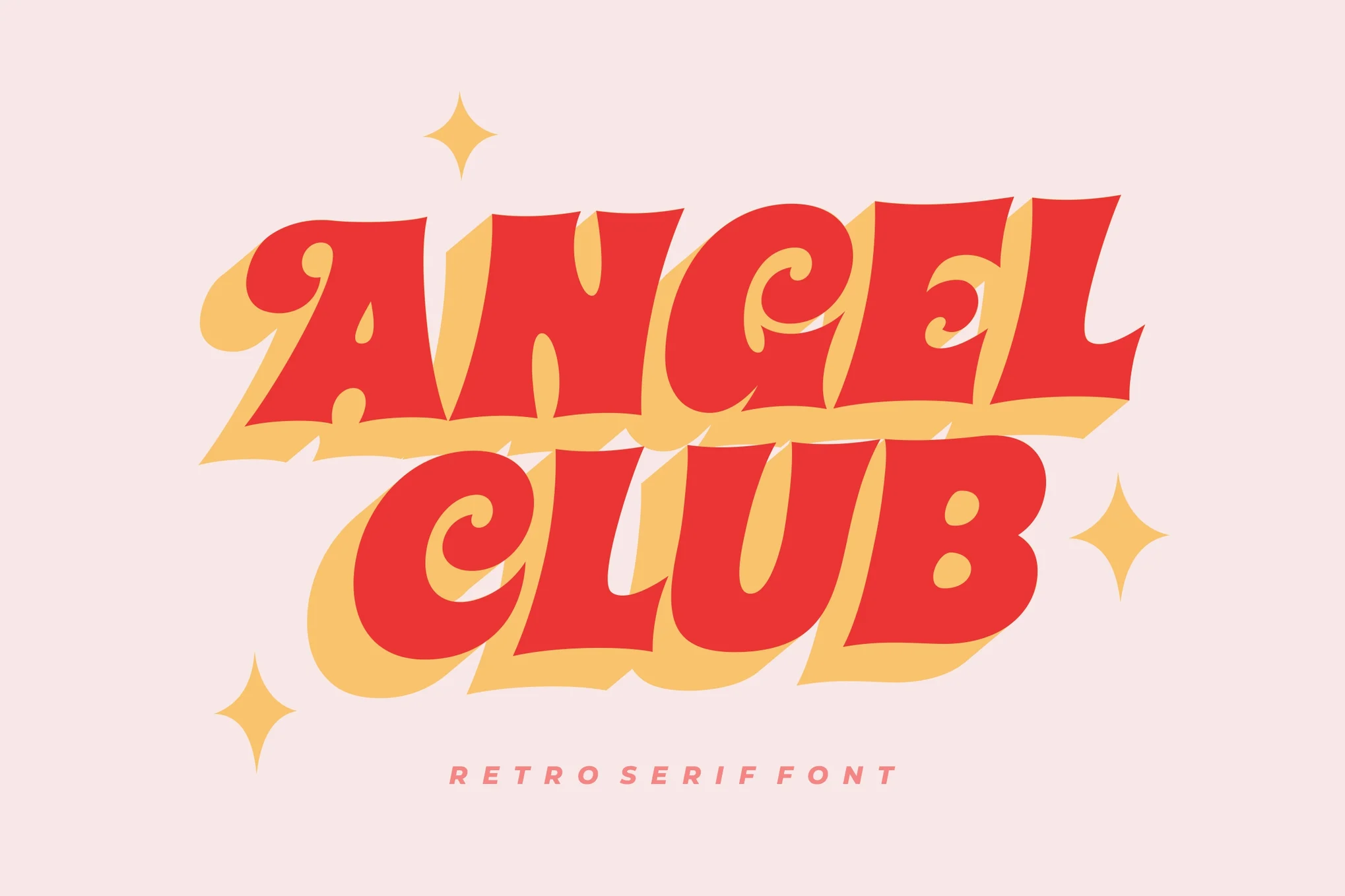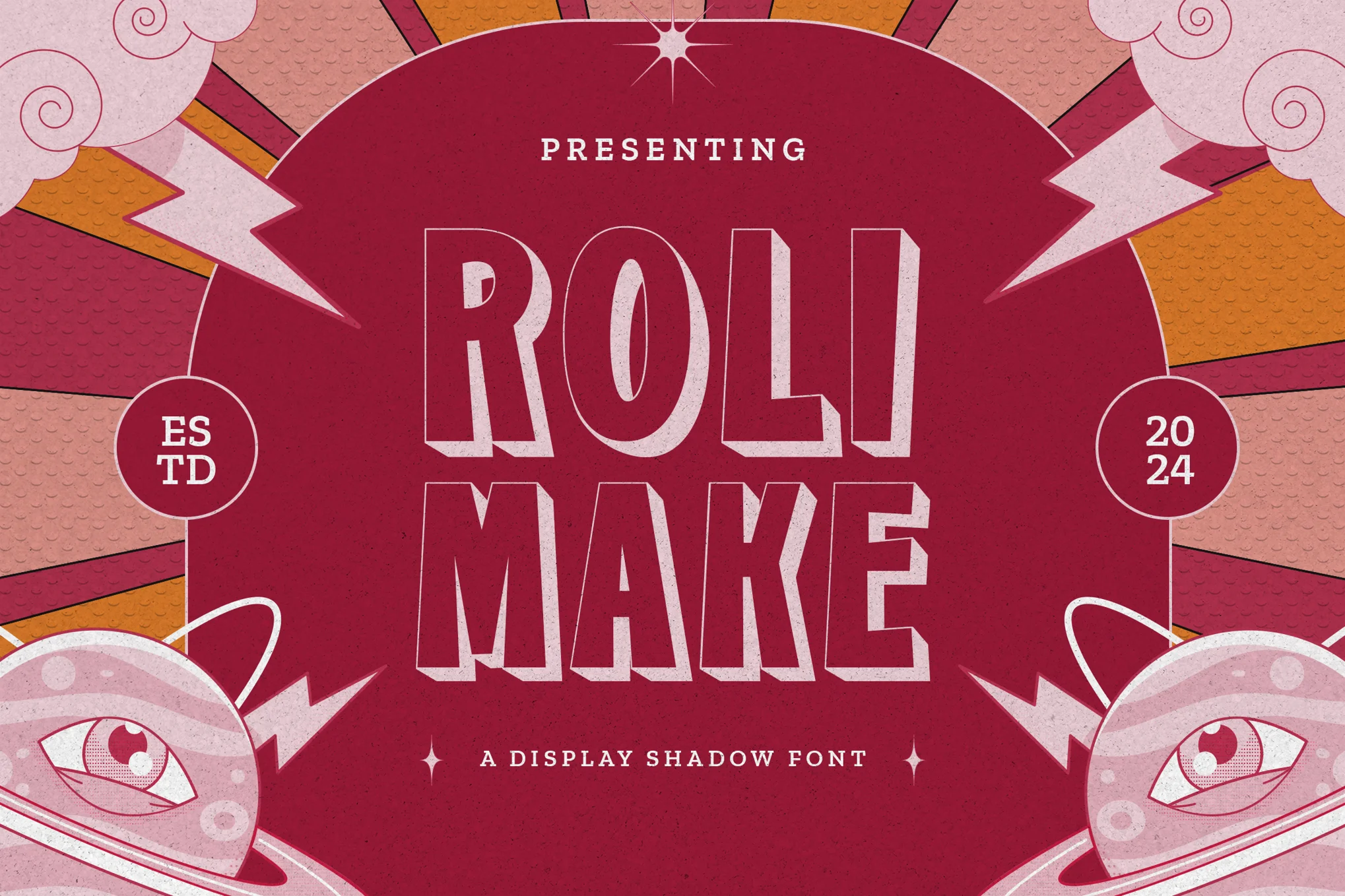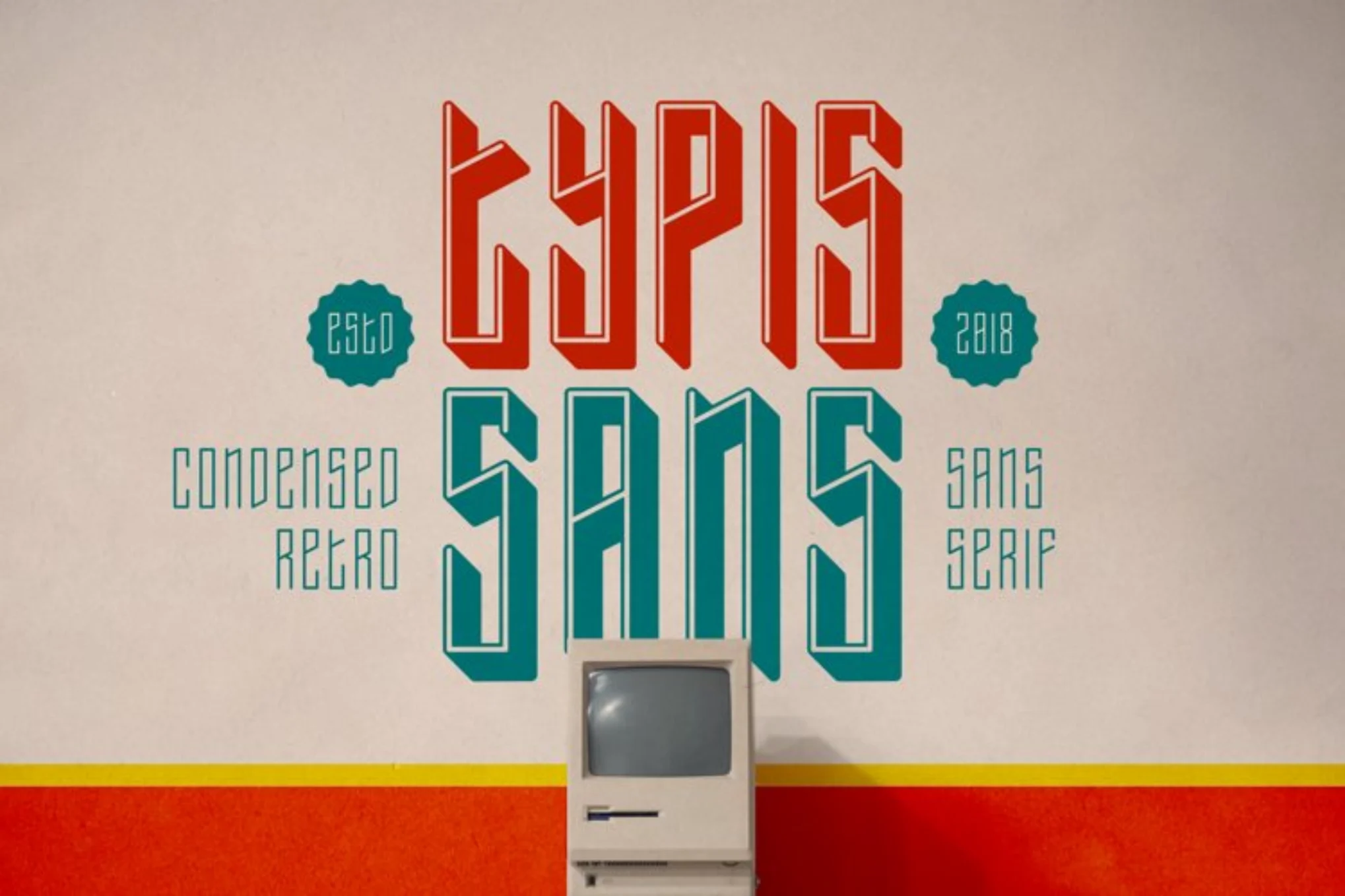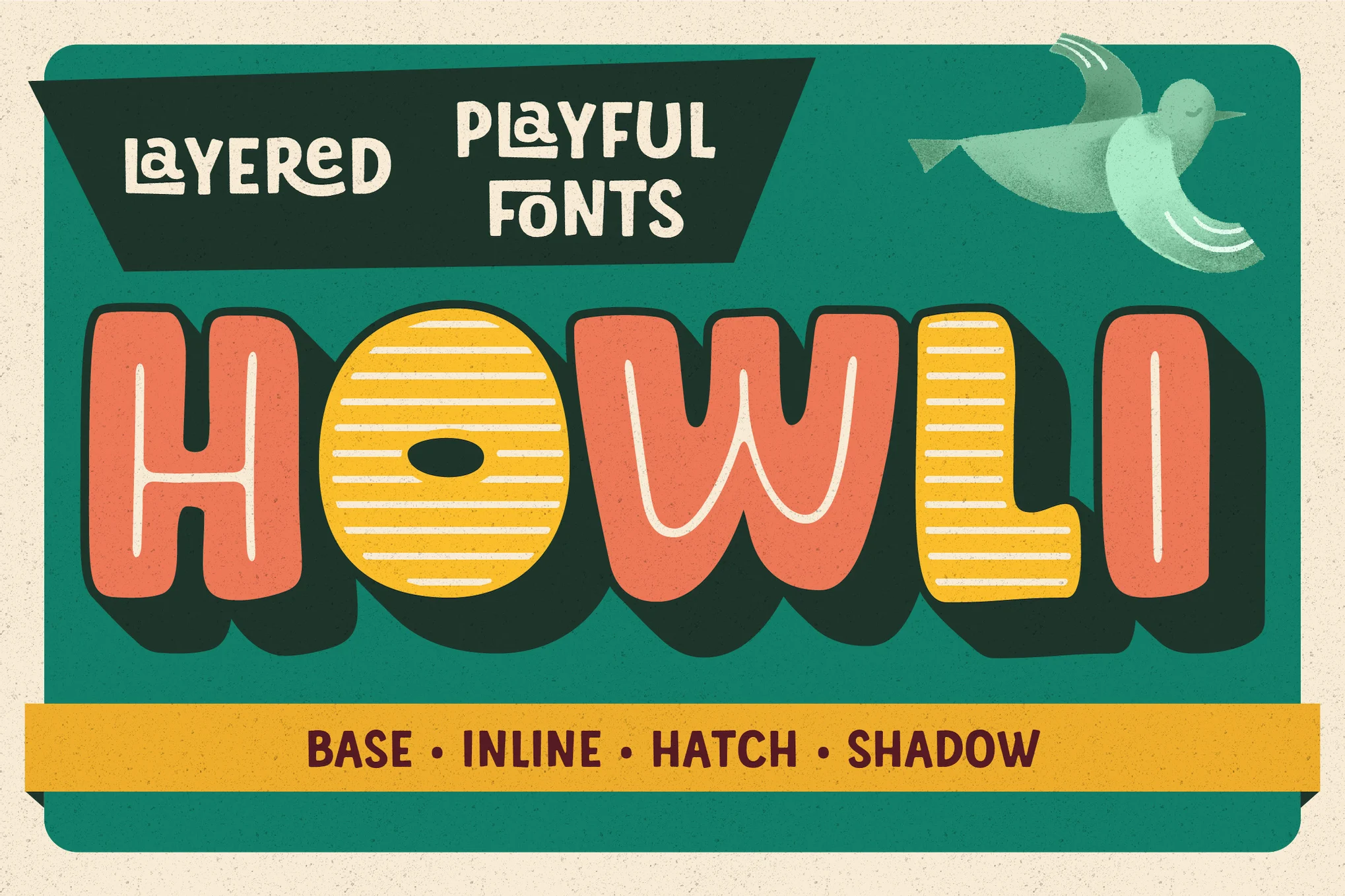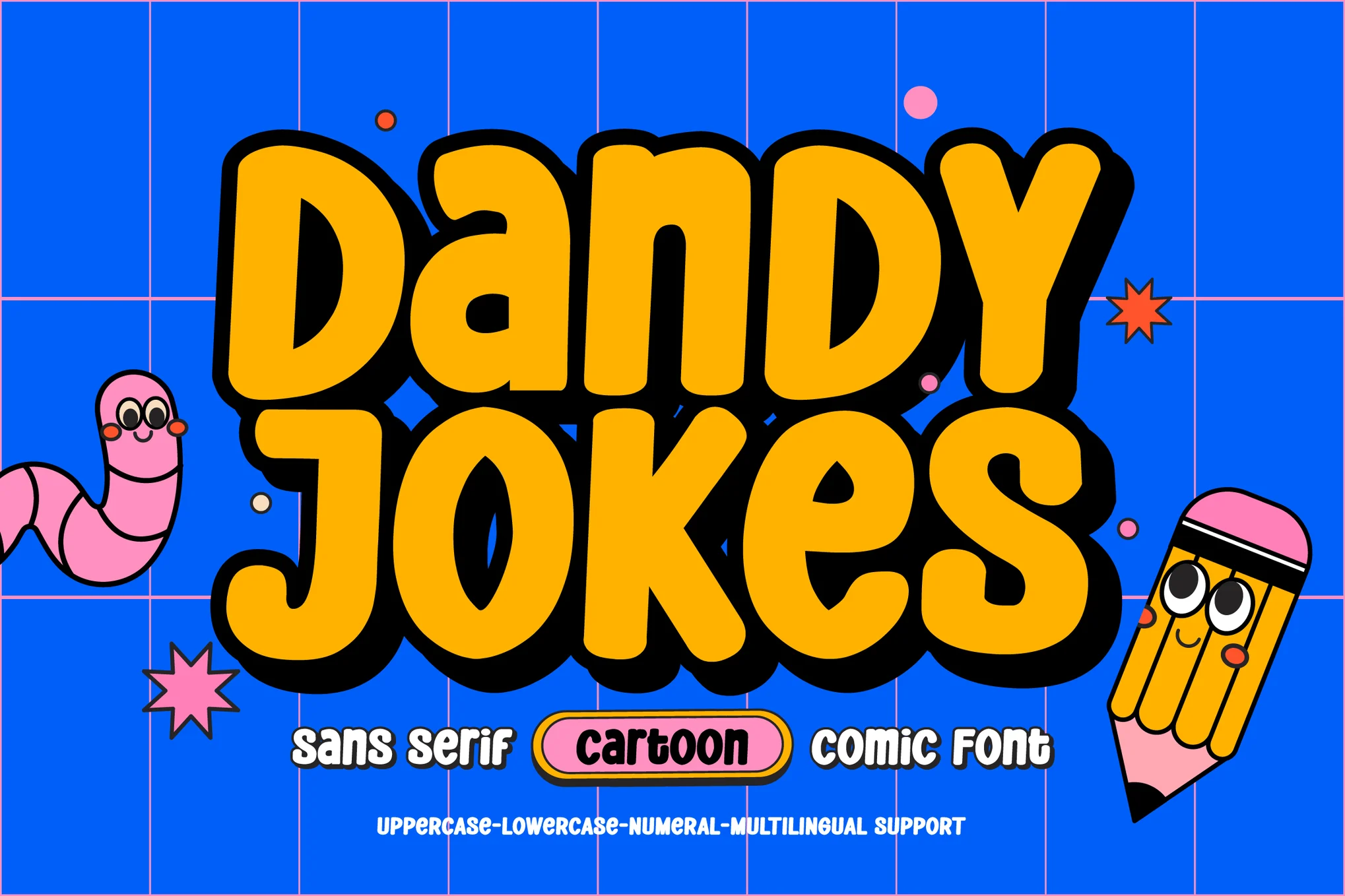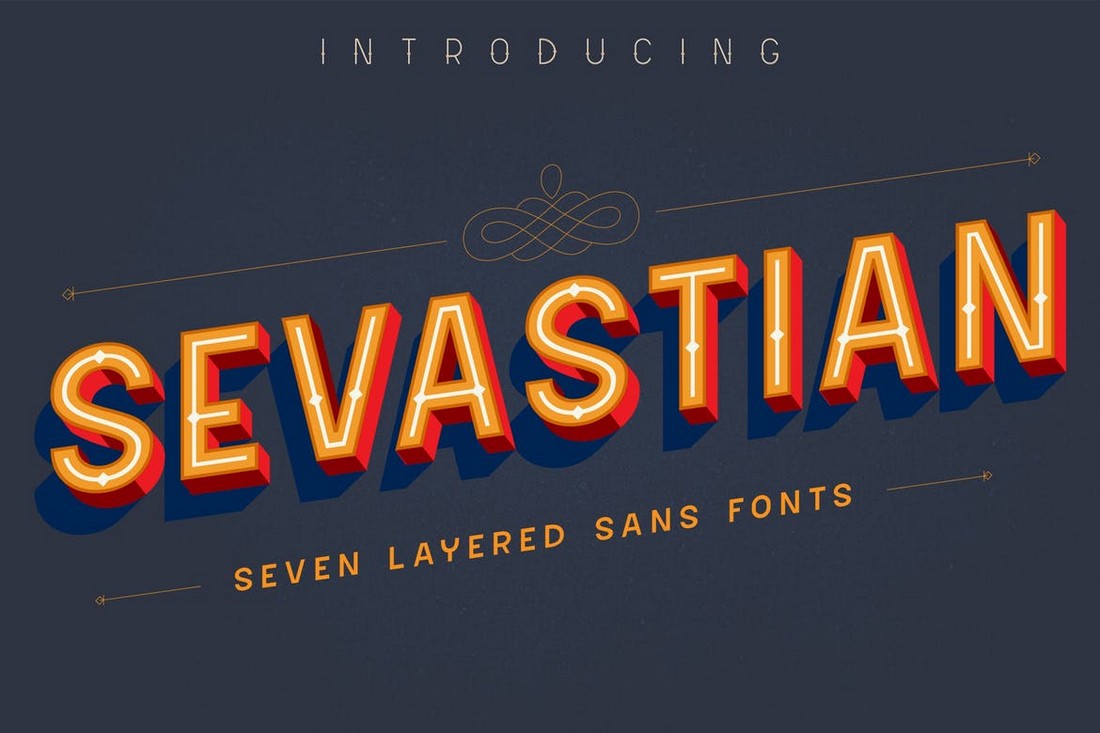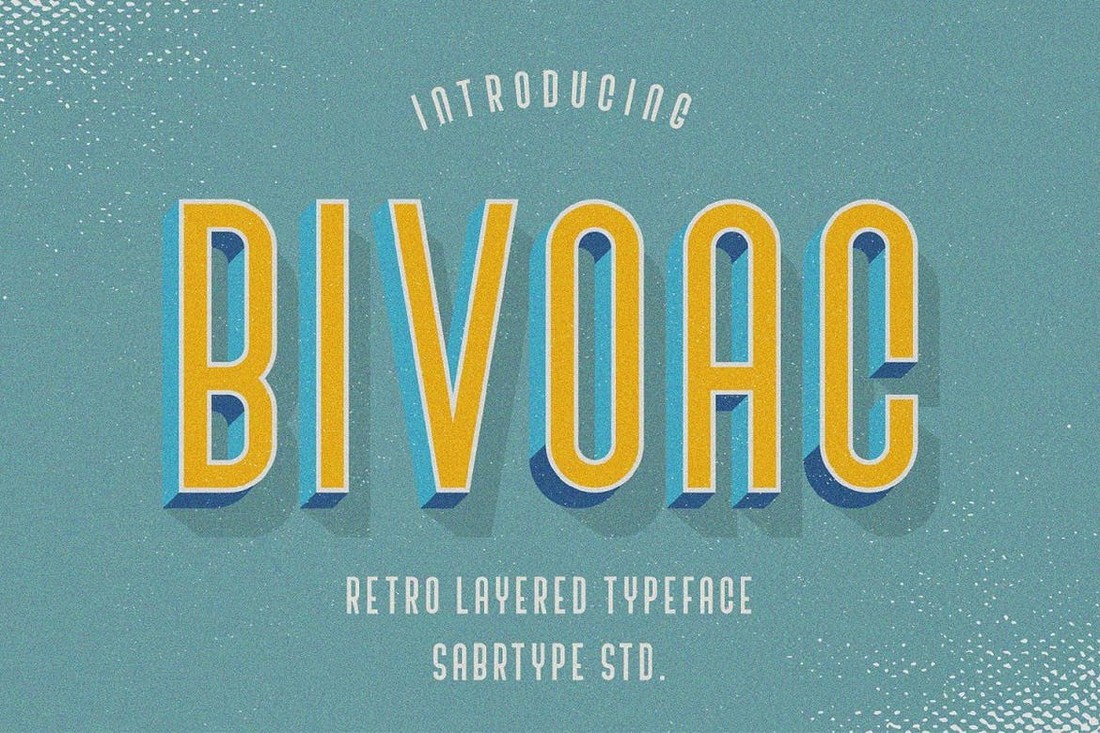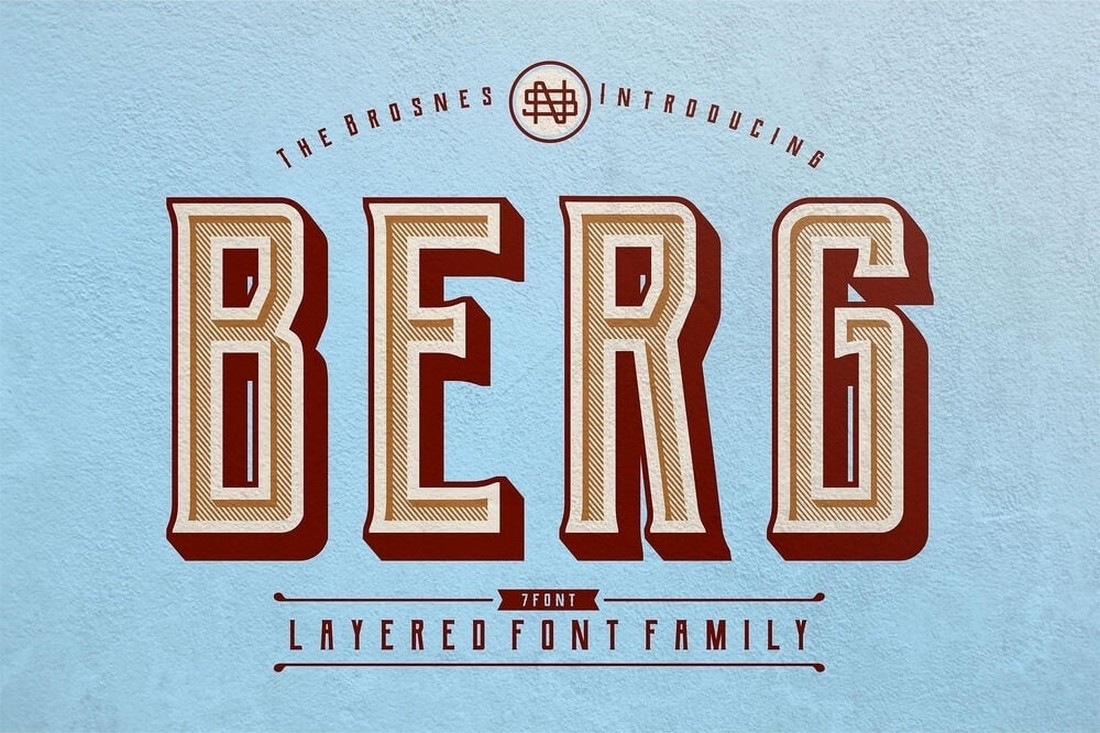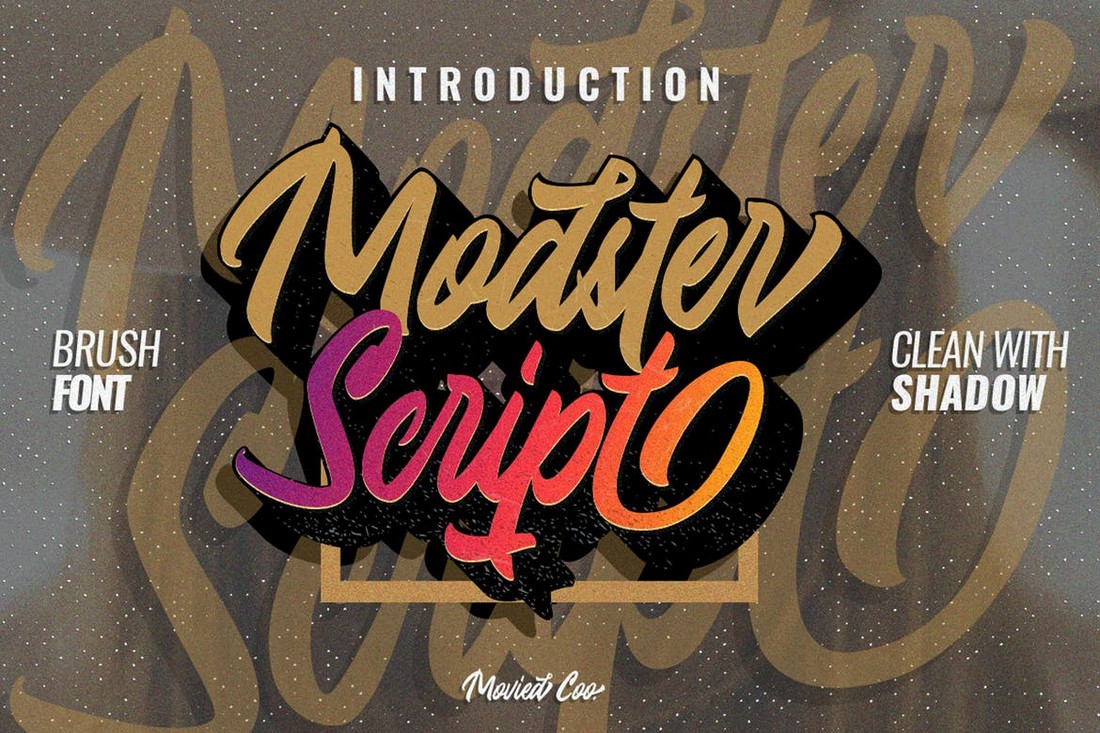
Adding a drop-shadow to your text in Photoshop is a great way to highlight titles and make a cool text effect.
What if there’s a font that already has a shadow effect and you can use in any software? Well, that’s exactly what a shadow font is all about.
Shadow fonts are a special type of font that comes with a built-in shadow effect. Sometimes, this effect even gives a cool 3D-like look to the font as well.
In this collection, we are showing you some of the best fonts with shadow lettering that have various styles of designs and purposes. Have a look.
Geist - Creative Shadow Font
Geist is a captivating sans-serif shadow font that comes in eight unique styles. Perfect for a bold design statement, use it in larger sizes to emphasize the shadow, vintage, and inline features. Ideal for those who want to bring an edgy element to their project, Geist even includes uppercase letters and numbers for maximum versatility.
Mupen - Bold & Fun Display Font
Mupen is a bold and playful display font, draws inspiration from neobrutalism styles. This striking typeface is perfect for enhancing your typographic designs on a wide array of mediums like posters, book covers, signage, apps, games, and much more. Available in regular, outline, and shadow formats, it includes uppercase, lowercase, numerals, and more.
Angel Club - Stylish Shadow Font
Angel Club is a striking shadow font with a retro twist. Bundling three styles – Regular, Slanted and Shadow, it’s infused with a nineties vibe that will seamlessly add a retro touch to any project. Offering uppercase and lowercase letters, numbers, punctuation, and multilingual support, this font is available in OTF and TTF formats.
Rolimake - Shadow Display Font
Rolimake is a dynamic typeface that features a notable shadow effect, adding depth to headlines and branding. Its bold yet artistic style offers a unique touch to designs, capturing attention across both print and digital formats. It includes uppercase, lowercase, symbols, punctuation, and numerals.
Typis - Layered Shadow Font
Typis Sans is a layered shadow font inspired by retro sans serif typography. Its geometric, slim, and condensed shape delivers an authentic vintage feel. It comes in Regular and Shadow versions, in both TTF and WOFF formats, and includes uppercase, lowercase, numerals, and punctuation. Combining both allows for an easy creation of a shadow effect.
Arkland - Monoline + Shadow Fonts
Arkland is a versatile script font that brings together vintage, modern, and retro aesthetics, inspired by dynamic culture and signage designs. Great for a range of creative projects, this font can be used to create logos, posters, invitations, packaging, apparel designs and so much more.
Biglett - Shadow Display Font
Biglett is a fun and creative shadow font that’s perfect for crafting bold titles. It’s also great for branding design and creative product packaging. The font includes uppercase and lowercase letters with ligatures, alternates, and symbols.
Airbag - Serif Shadow Font
Airbag is a simple, minimal shadow typeface incorporating over 300 glyphs, including upper/lowercase letters, numbers, punctuation, and Western and Central European characters. Although it doesn’t work well as a web font, it shines in printed and on-screen material. The Airbag typeface is supplied in both ttf and otf formats.
Howli - Layered Shadow Font
Howli is a playful, layered shadow font offering a charming touch to your designs. Comprising of Inline, Hatch, Base, and Shadow, this font family explores cute aesthetics through three distinctive layers: base, shadow, and either inline or hatch. Perfectly suited for various creative projects, Howli makes your text pop with its unique, layered effect.
Dandy Jokes - Cartoon Shadow Font
Dandy Jokes is a unique retro hipster style typeface, inspired by 60s to 80s retro cartoon movies and superhero styles. It offers a blend of bold and sans serif hipster elements that comes in both uppercase and lowercase, along with numerals, punctuations, symbols and multilingual support. Available in both OTF and TTF formats.
Sevastian - Layered Shadow Font
Sevastian is one of the best shadow fonts you’ll find on our list. It features a very unique shadow effect that creates a realistic 3D effect. Sebastian is a layered font and it comes in multiple styles of shadow effects, including inner shadow, extrude, and more. You can do many different experiments with this font.
Black Romance - Vintage Blackletter Shadow Font
Vintage fonts tend to add a certain elegance to any design you create. With this font, however, you get to add a shadow lettering effect alongside that elegant vintage look. It’s a stylish blackletter font that also includes a shadow font variant in addition to a regular font. It’s the perfect type of font for crafting product labels.